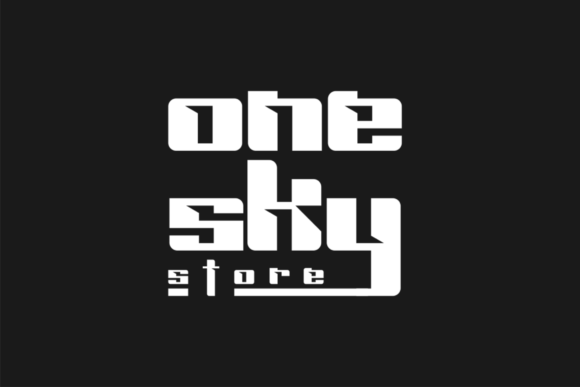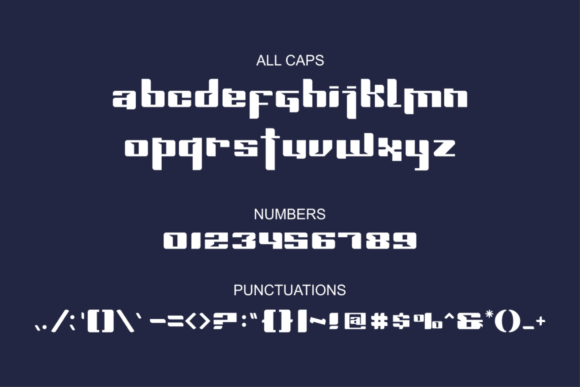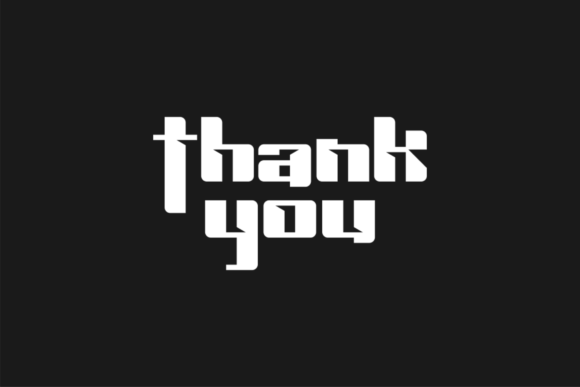
Introduction to Faley Font Font
Fonts play a crucial role in design, and the Faley Font font is a typeface that brings both character and versatility to any project. Whether you’re working on a branding project, a website, or a print design, the Faley Font font offers a unique style that can elevate your work.
Faley is a modern and cool serif font.
Incredibly versatile, this typeface suits a large variety of projects that need bold and daring typography .
Key Features of Faley Font Font
Why Choose Faley Font Font?
The Faley Font font is more than just a typeface – it’s a design tool that helps you communicate your message with style and clarity. Its unique character set and versatile design make it suitable for a wide range of applications, from elegant invitations to bold headlines.
With its carefully crafted letterforms and balanced proportions, the Faley Font font ensures readability and visual appeal across all mediums.
What makes Faley Font font special?
The Faley Font font stands out with its unique design, exceptional readability, and versatility across various design applications.